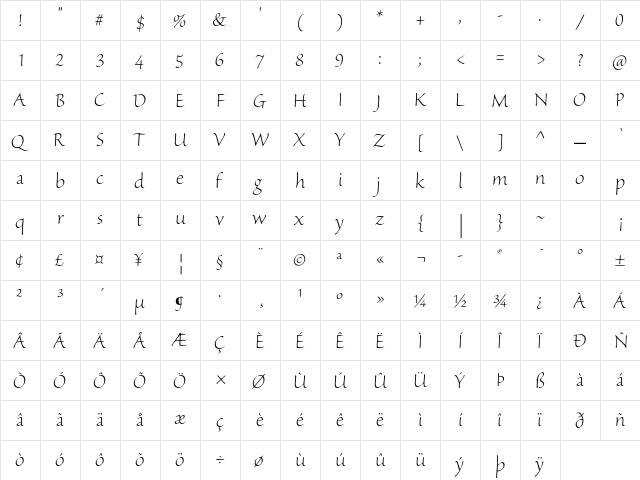
Sanvito Pro Light Display
Light Display ·  Robert Slimbach ·
Design Context for Sanvito Pro Typeface
Sanvito Pro brings ornamental detail and strong personality to headlines and identities, where visual impact matters more than quiet functionality. The delicate stroke weight brings airiness and refinement to layouts.
Font Pairing: Pair with a clean neutral sans-serif for body copy to let Sanvito Pro's character lead without overwhelming the composition.
Pro Tip: Treat Sanvito Pro as the centrepiece of your typographic hierarchy. One strong heading set in a decorative face can carry an entire layout.